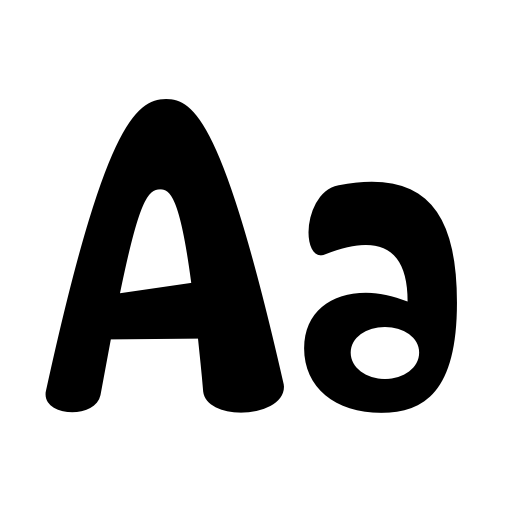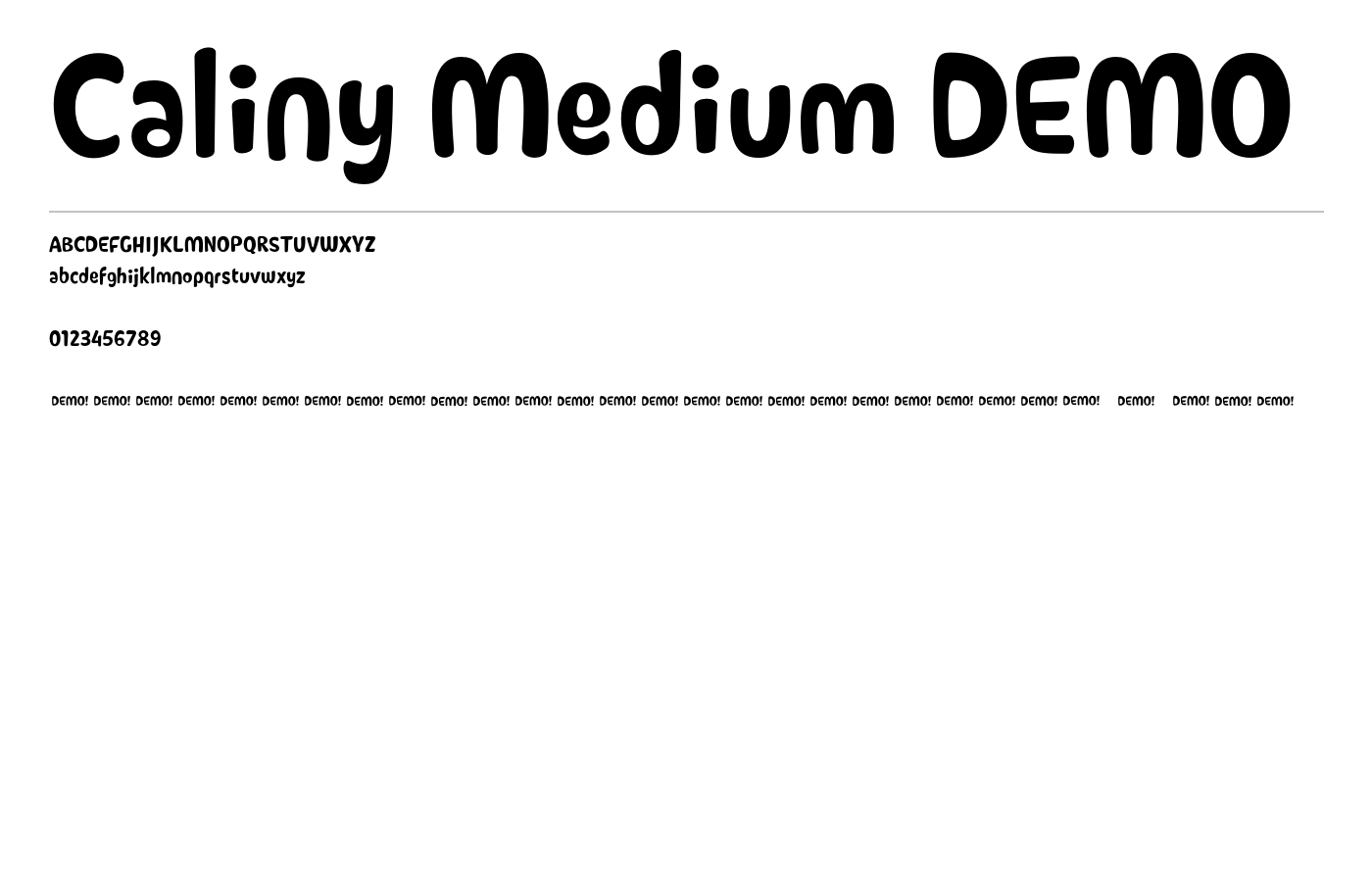
Caliny is a playful and casual sans serif font with rounded, soft edges and a friendly feel. Its medium weight and open letterforms make it approachable and easy to read, perfect for informal designs, children’s materials, and creative branding. This font works well in headlines, posters, and digital content where a fun and lively personality is desired.
Caliny Font
About Caliny Font
| Font family | Caliny Font |
| Designer | Marc Lohner |